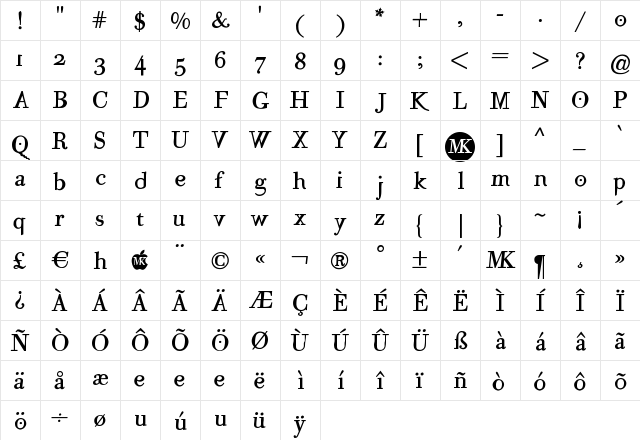
MutantA Regular Font Preview
MutantA Regular
Design Context for MutantA Typeface
MutantA is a composed and adaptable typeface that performs quietly and consistently across a wide range of design contexts.